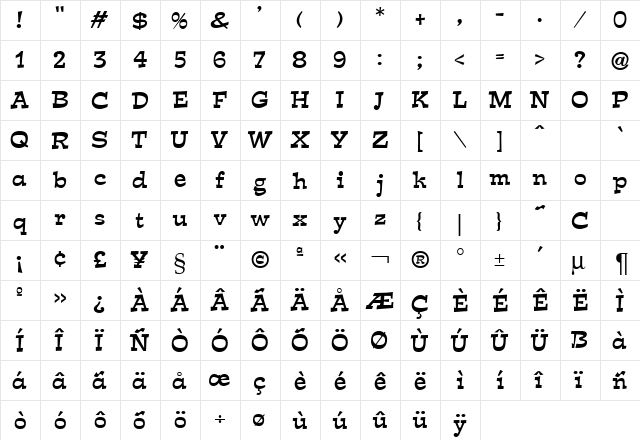
Estrella DB Regular
Design Context for Estrella DB Typeface
Estrella DB is a composed and adaptable typeface that performs quietly and consistently across a wide range of design contexts.